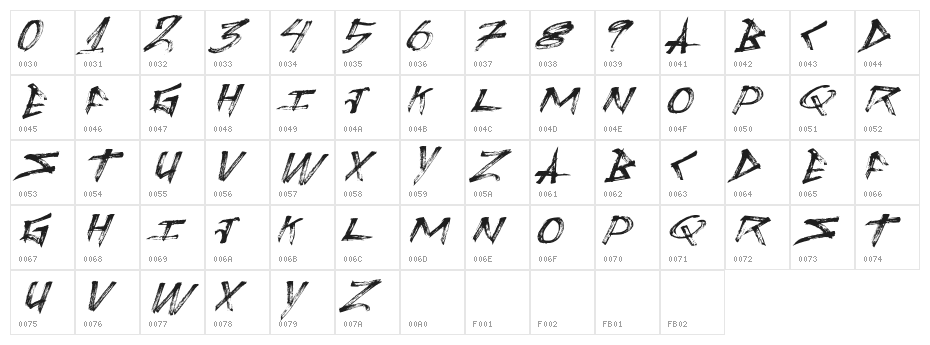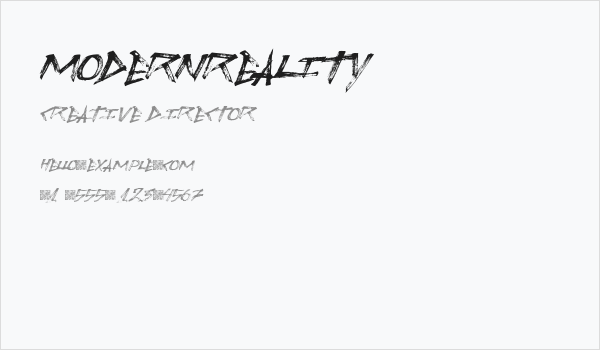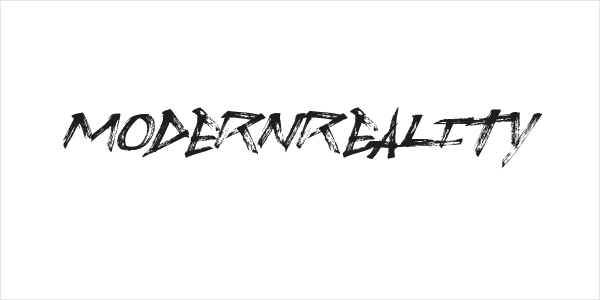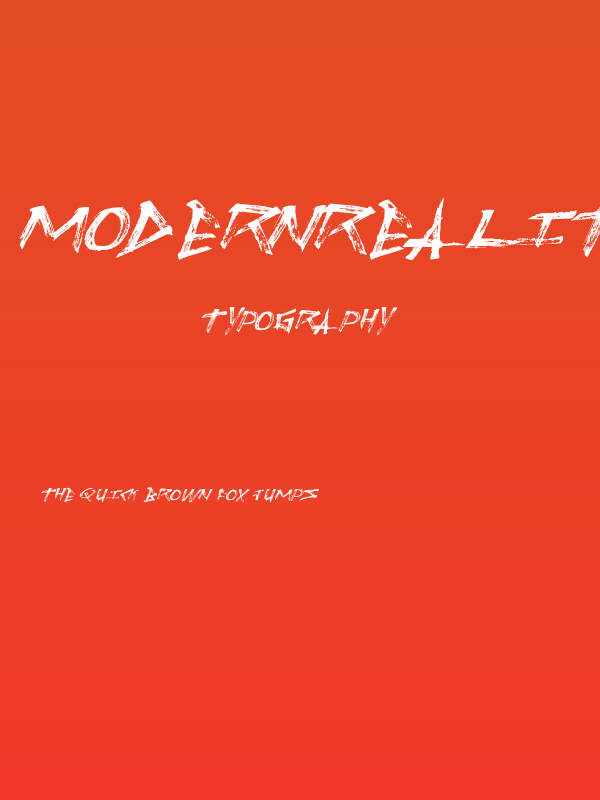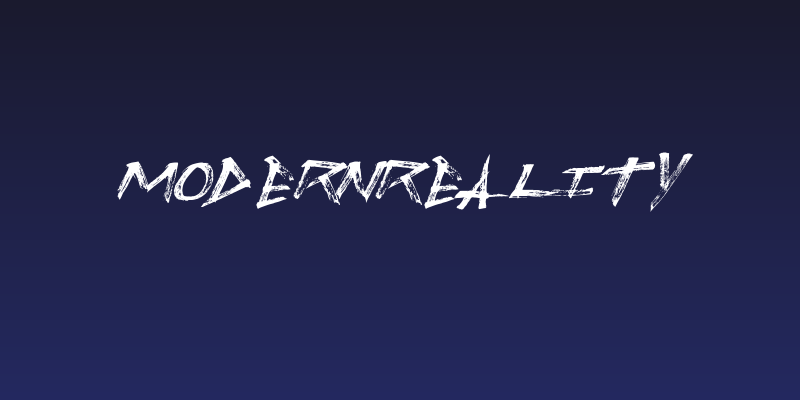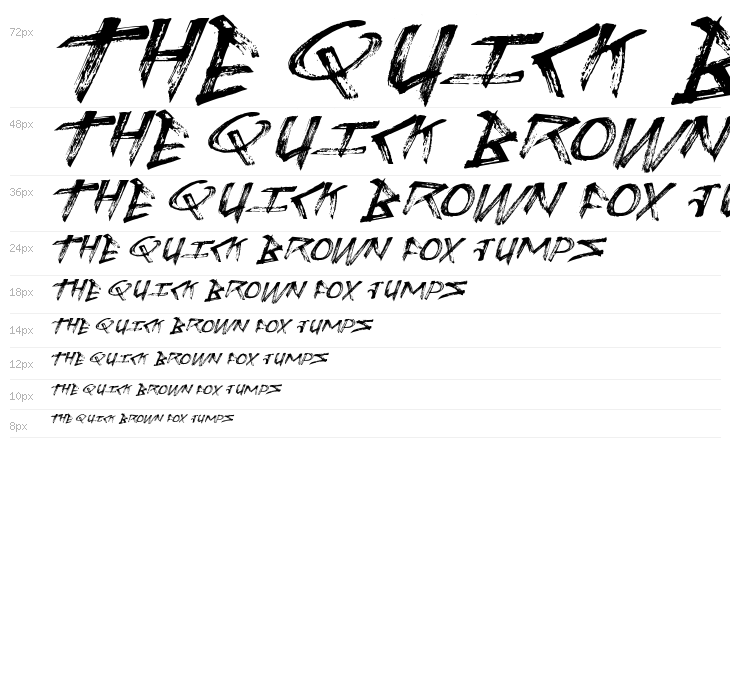
ModernReality Font
ModernReality Description
This font features a bold, edgy design with a distressed, grunge aesthetic. The characters are crafted with rough, jagged edges, giving them a dynamic and rebellious feel. The strokes vary in thickness, creating a sense of movement and energy. This style is reminiscent of urban street art, making it ideal for projects that require a bold and unconventional look. The uppercase and lowercase letters maintain a consistent style, while the numbers and special characters complement the overall design. The font's unique appearance makes it stand out, perfect for creative and artistic applications.
| Overall Style | Modern, Edgy |
| Use Case | Headlines, Logos, Artistic projects |
| Proposed Projects | Ideal for album covers, posters, streetwear branding, and edgy graphic designs. |